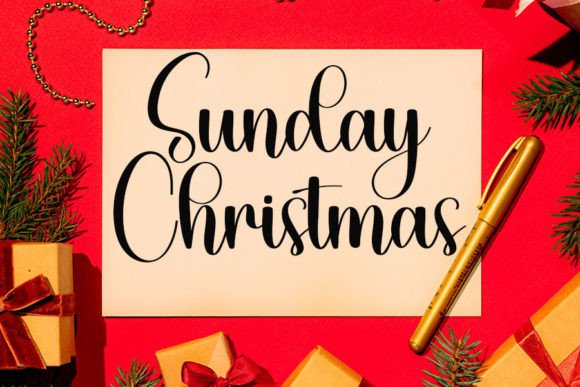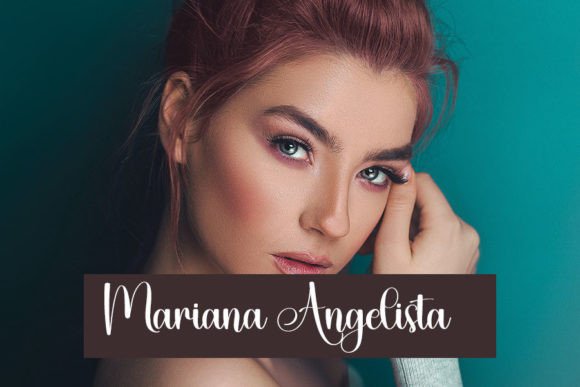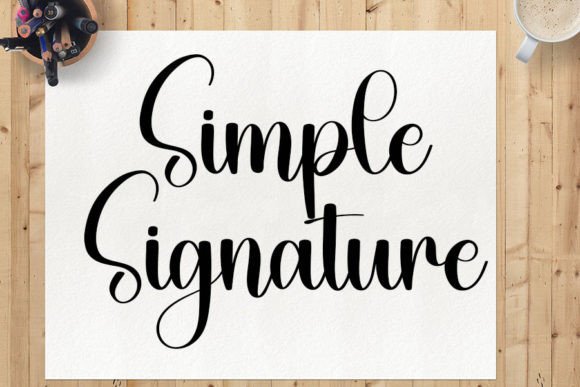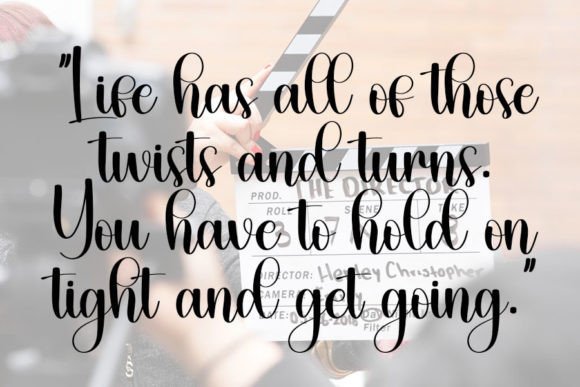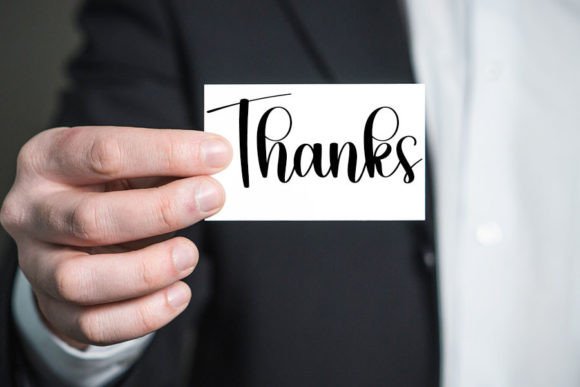
The Perfect Font for Any Creative Project
Have you ever stared at a blank canvas, feeling the pressure to create something amazing? For many designers, this feeling is a familiar one. We’ve all been there, searching for the perfect font to bring our vision to life. And then, we stumble upon it – the one font that makes our design pop. For me, that font is Action Font. Its friendly, handwritten style is the perfect addition to any project, from crafts to digital designs.
| 👤 Author | Harlek studio |
Whether you’re a seasoned designer or just starting out, Action Font is a valuable tool to have in your arsenal. Its simplicity and versatility make it a go-to choice for any occasion. With Action Font, you can create stunning presentations, beautiful greeting cards, and so much more. Its potential is limitless, and I’m excited to share its many uses with you.
Action Font Key Features
- Unique Characteristics: The font features a bold, dynamic design with exaggerated letterforms, making it ideal for use in headlines, titles, and other attention-grabbing applications.
Action Font Review
I recently had the chance to work with the Action Font, and I must say it’s a real showstopper. Here’s what I think:
- High-energy feel: The Action Font is perfect for making a bold statement, especially for headlines and titles.
- Readability: Despite its edgy look, the font is surprisingly readable, even at smaller sizes.
- Customization options: The font comes with a range of weights and styles, allowing for a lot of creative freedom.
- Not ideal for body text: While the font is great for headlines, it’s not the best choice for large blocks of text, as it can be tiring to read.
- May not be suitable for all audiences: The font’s edgy look may not be suitable for more conservative or traditional brands.
- May require additional styling: Depending on the design, the font may need additional styling or pairing to really make it shine.
Overall, I think the Action Font is a great addition to any designer’s toolkit. While it may have some limitations, it’s a powerful tool for making a statement and grabbing attention. With careful use and consideration, it can be a real game-changer for your designs.
Action Font: A Practical Application Guide
Tips for Getting the Most Out of Action Font
Use Action Font sparingly to create emphasis and draw attention to key points in your design.
Combine Action Font with other design elements, such as bold colors and shapes, to create a visually appealing design.
Experiment with different font sizes and styles to find the perfect balance for your design.
Action Font is ideal for:
Creating attention-grabbing headlines and headings.
Emphasizing key
Alternatives to Action Font
Action Font is a popular sans-serif font known for its clean and modern look, making it a popular choice for designers. However, there are several alternatives that offer similar characteristics and can be used in various design projects.
Q: Can I customize Action Font to fit my specific design needs?
Action Font is a highly customizable font, with advanced features like ligatures, swashes, and stylistic sets. You can use font editing software like FontLab or Glyphs to customize the font to fit your specific design needs. However, please note that any customizations may void your warranty or license agreement.